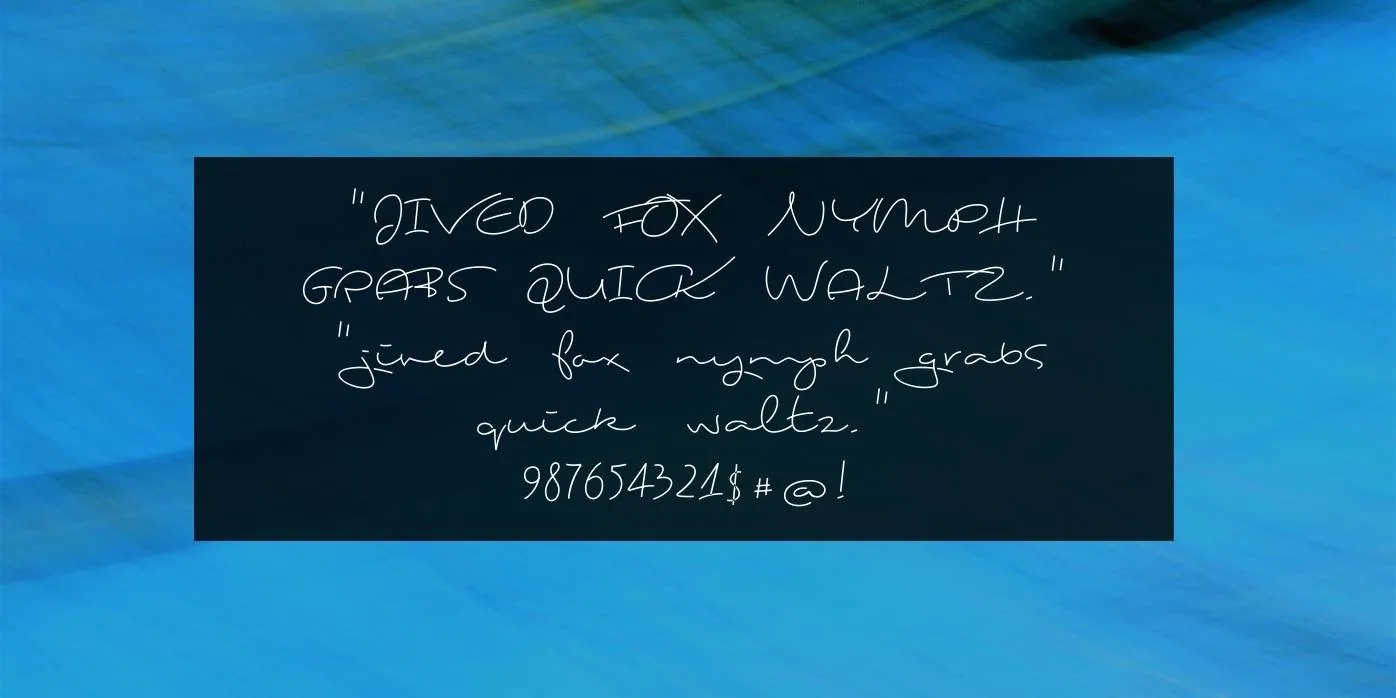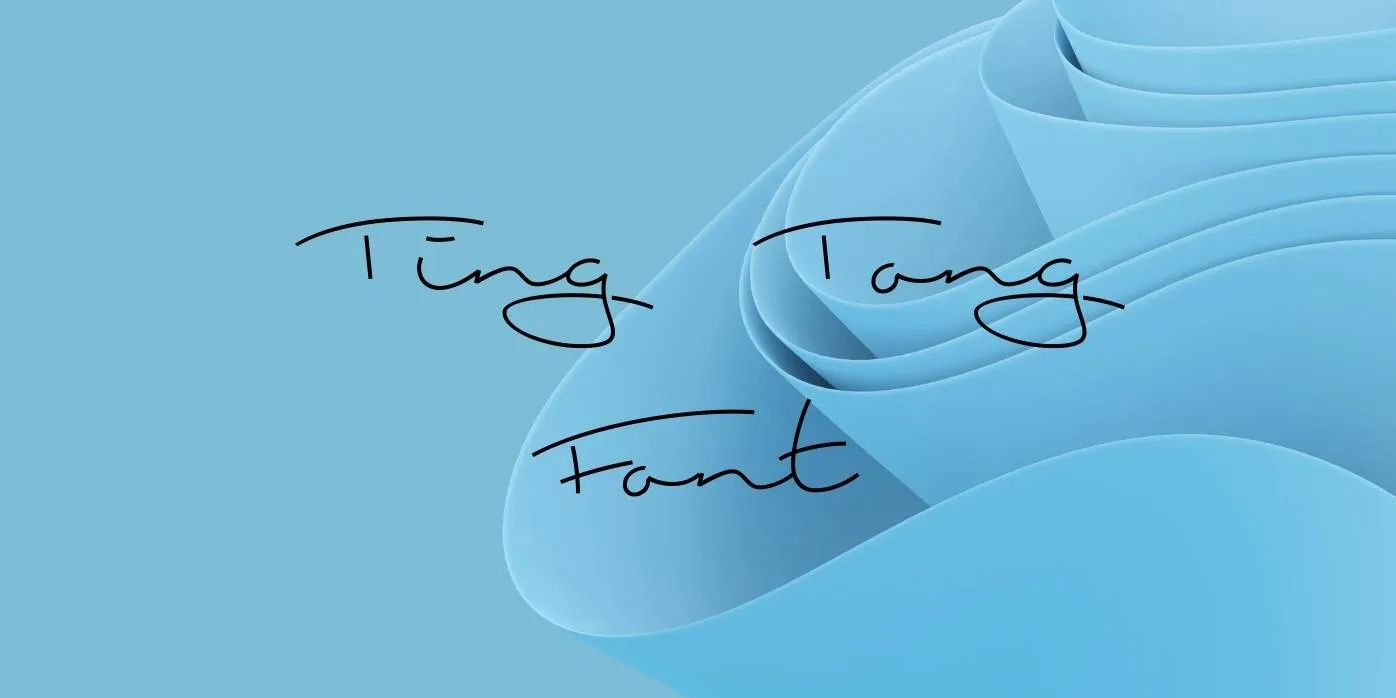
Ting Tong Font
Here, we are going to introduce a very popular typeface known as Ting Tong Font. This awesome typeface was designed by Roland Huse Design. It belongs to the Calligraphy typeface. The Ting Tong Typeface has a very stylish look and it will surely give your text a unique touch.
This typeface is available in two different styles, namely, the regular and the italic versions. Both of these styles are really great and they can be used for various purposes. You can also use this typeface for various programs like Adobe and Canva. You can use ondise font which has the same style and characters as this one.
If you are looking for a typeface that can add a touch of class to your designs, then you should definitely go for the Ting Tong Typeface. It is perfect for logos, headlines, labels, and other similar purposes. You will have to download this typeface and use it in all of your projects.